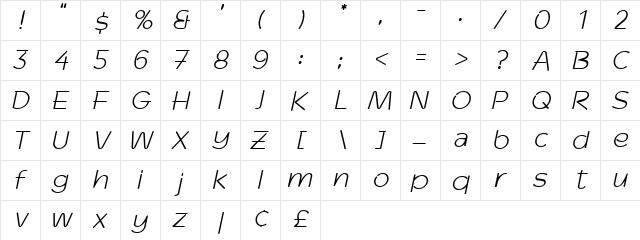
Defney Oblique
Design Context for Defney Typeface
Defney is a composed and adaptable typeface that performs quietly and consistently across a wide range of design contexts. Its italic angle brings a sense of urgency and motion to the letterforms.
Pro Tip: Try Defney for annotation and caption copy alongside an upright companion — the contrast in angle creates a dynamic but ordered typographic system.